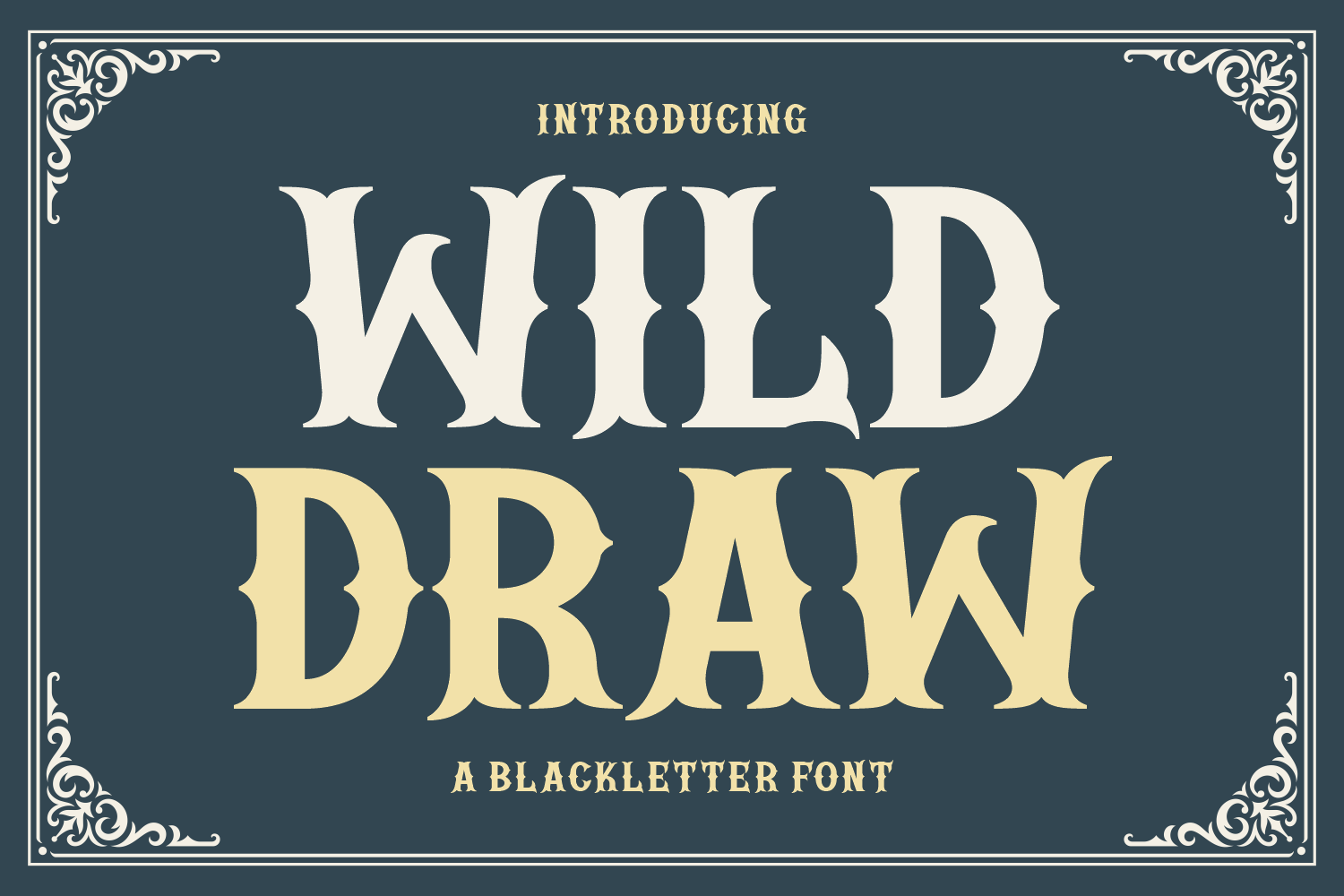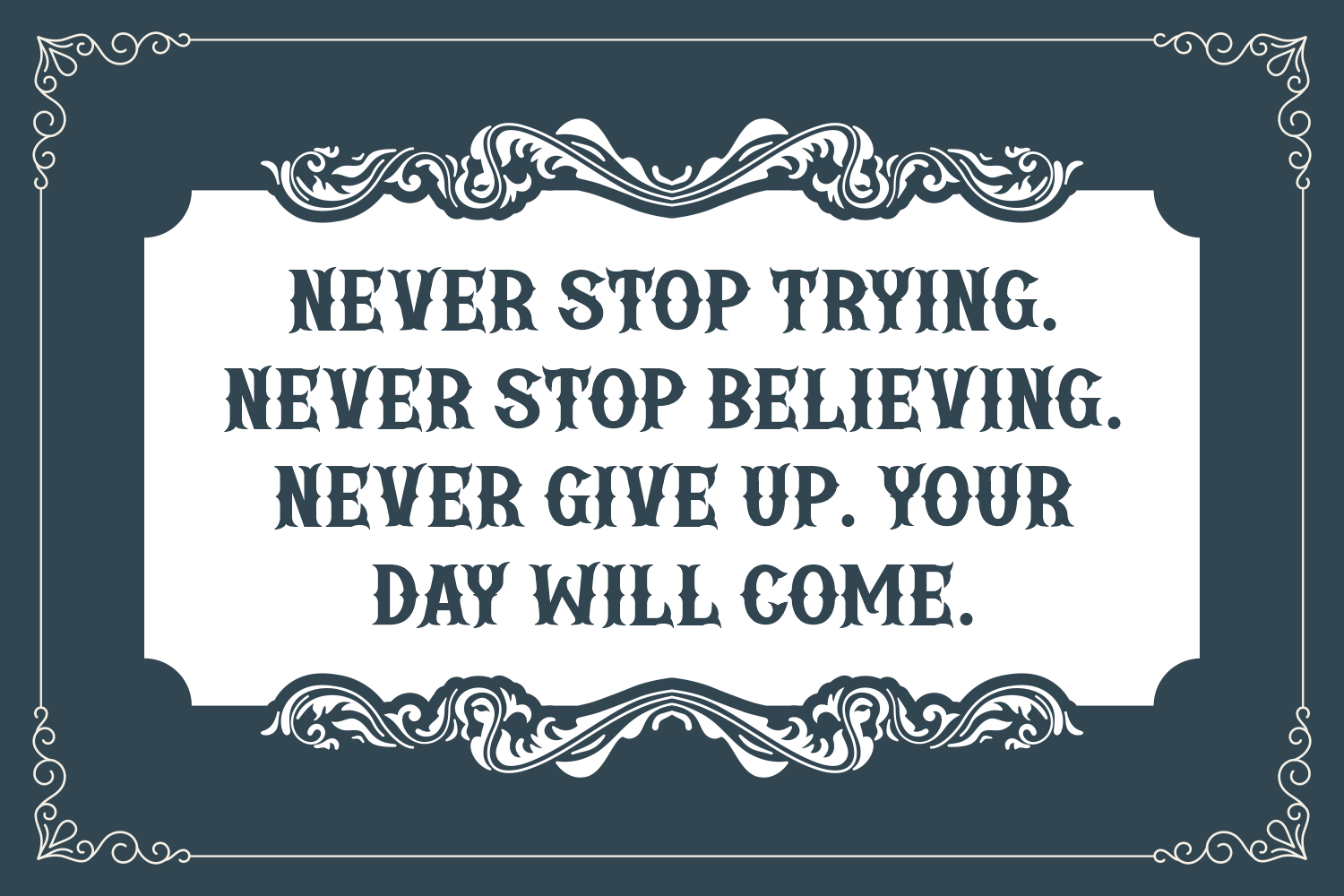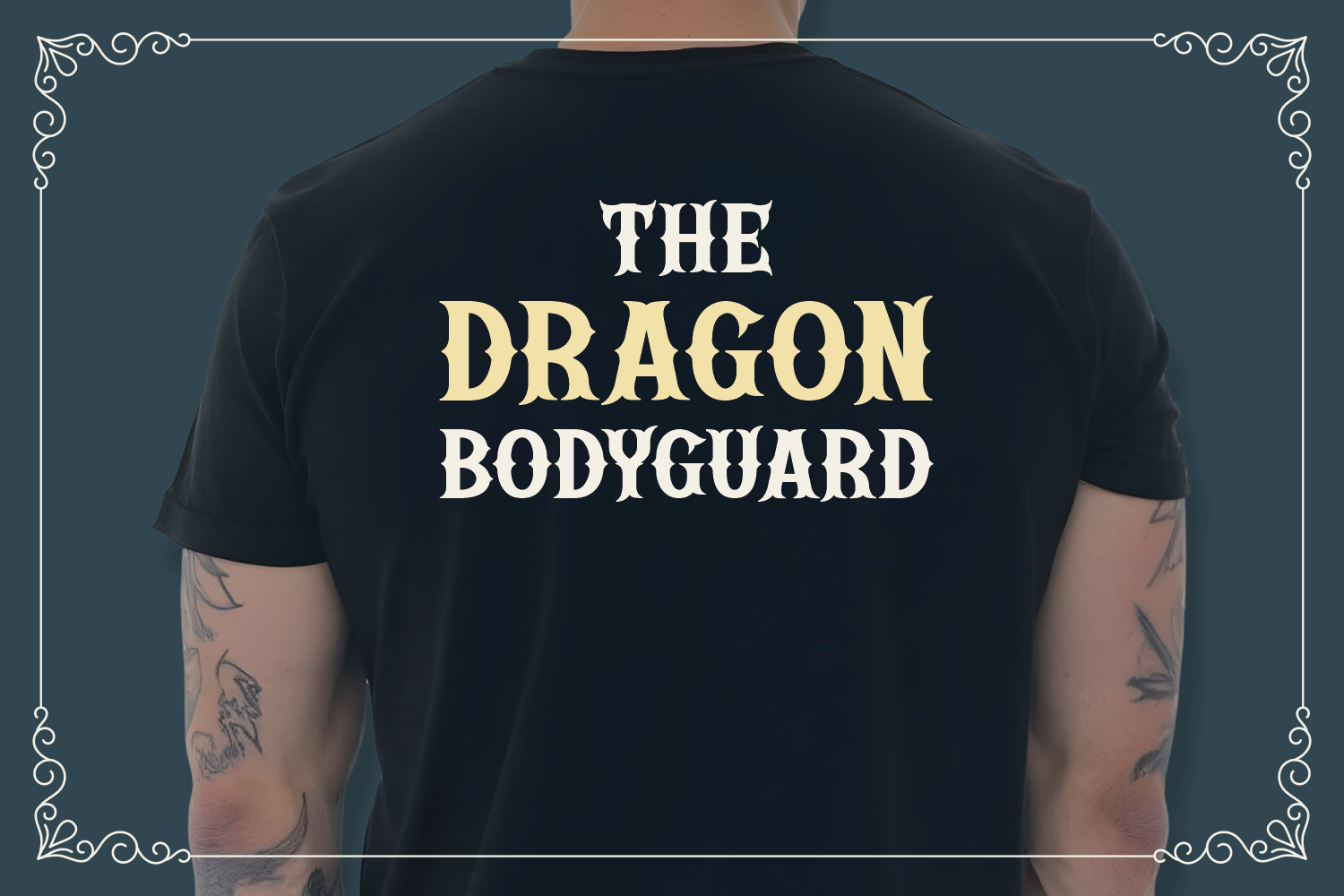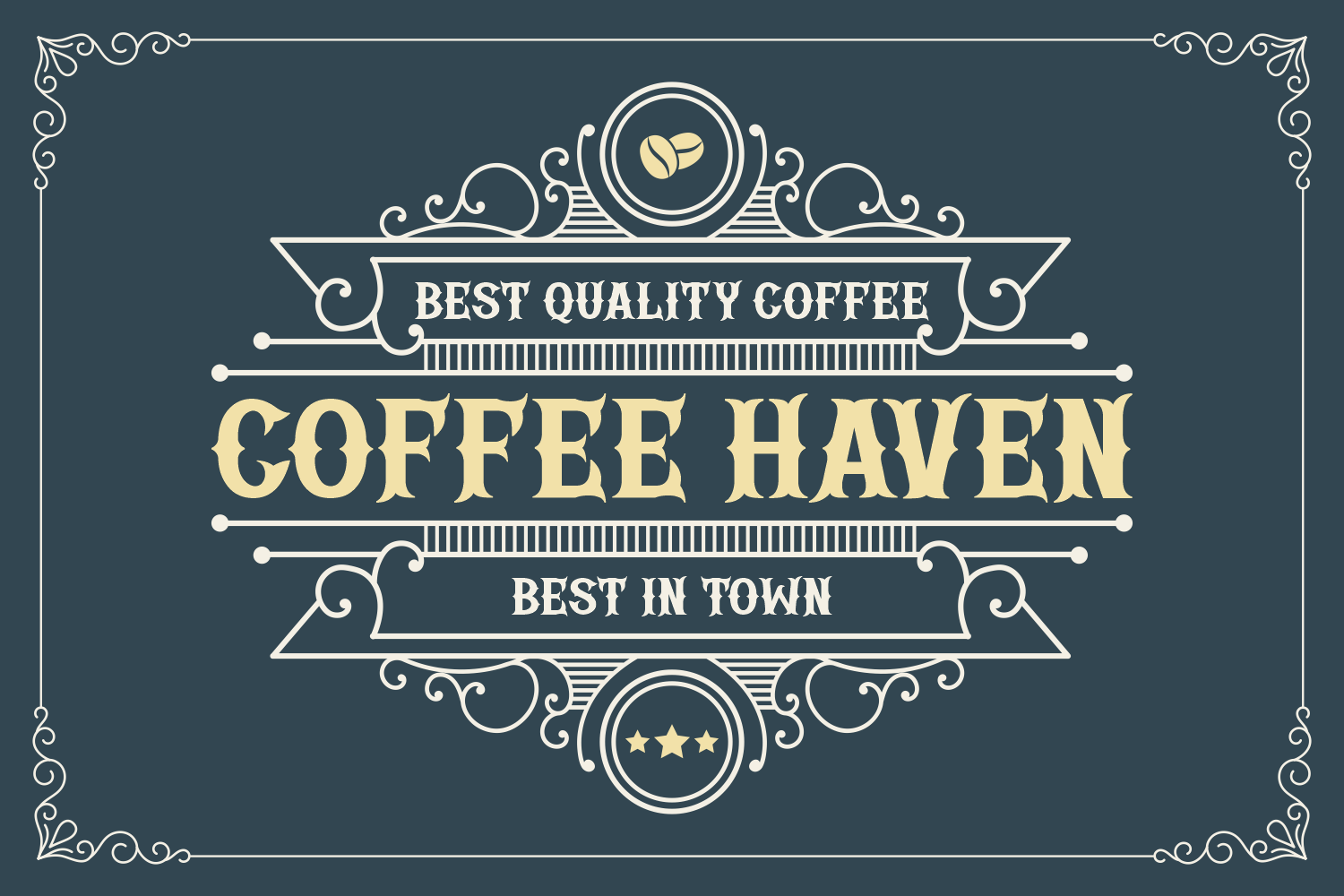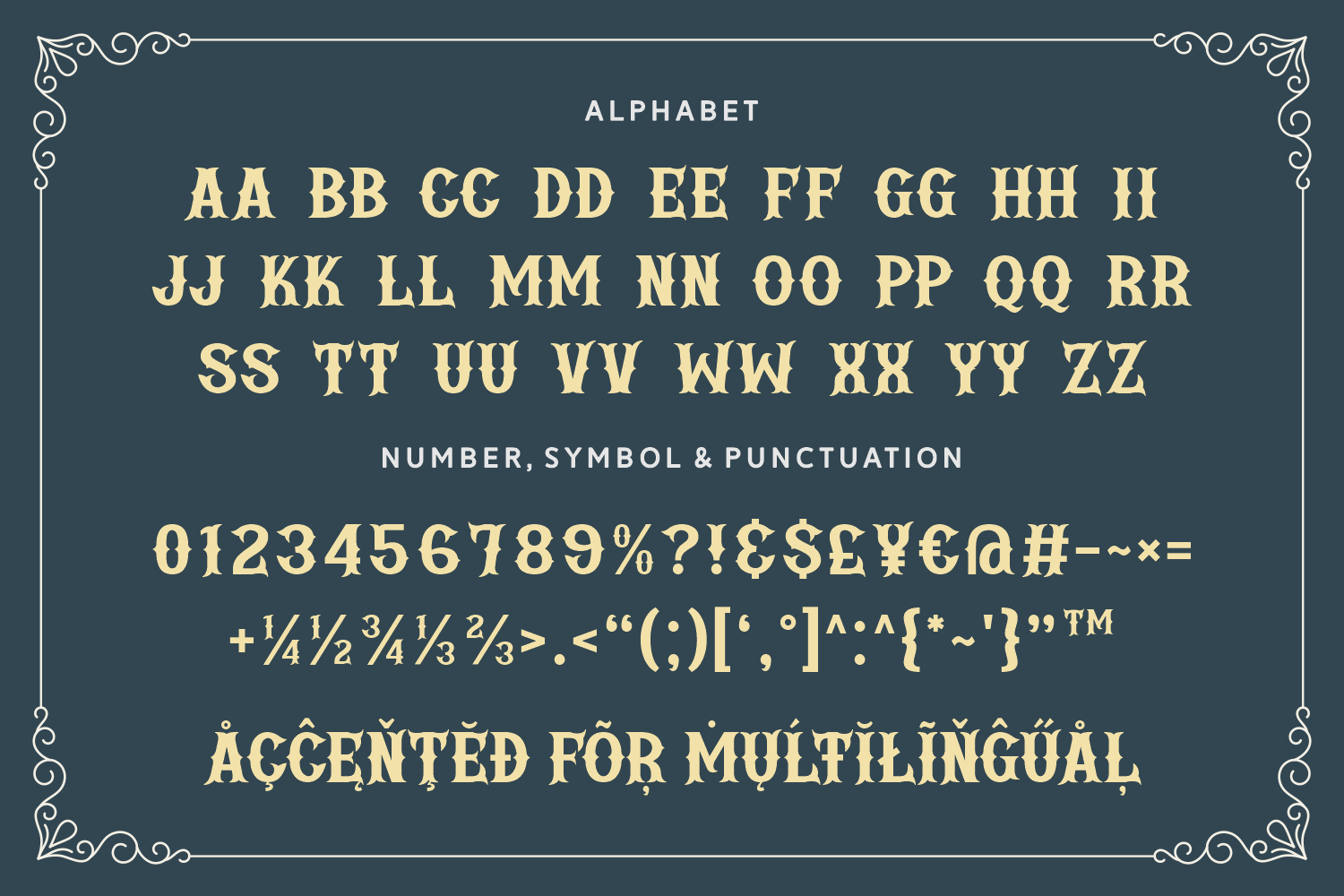
Wild Draw is a bold blackletter font with a rugged vintage vibe, perfect for Western posters, tattoo-inspired logos, and adventurous branding. Its sharp serifs and ornate details evoke an untamed frontier aesthetic.